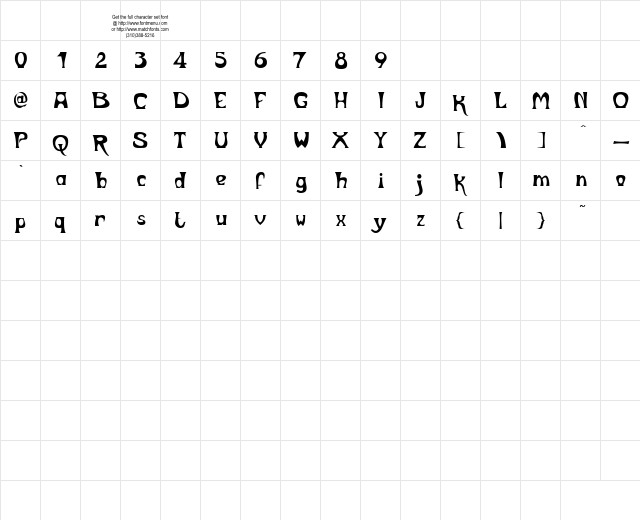
Metropolitain Tryout Regular Free Font
Metropolitain Tryout Regular
Design Context for Metropolitain Tryout
Metropolitain Tryout is a composed and adaptable typeface that performs quietly and consistently across a wide range of design contexts.